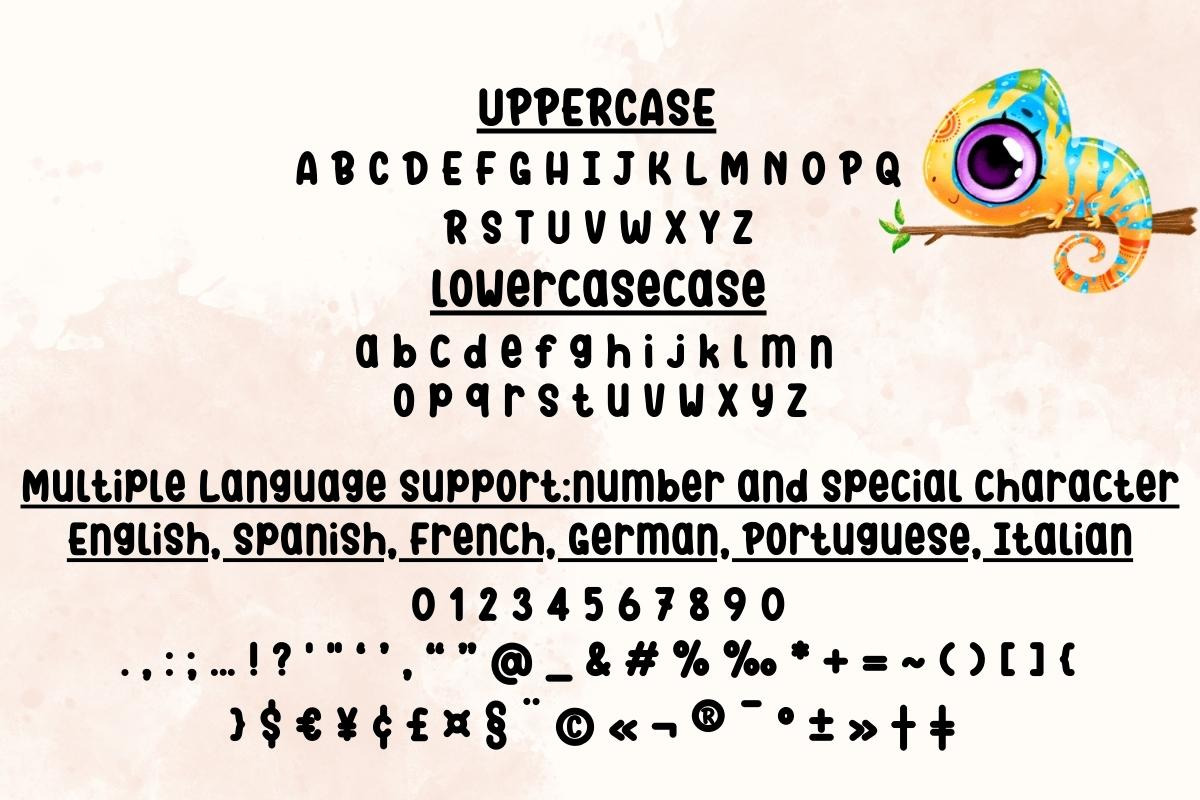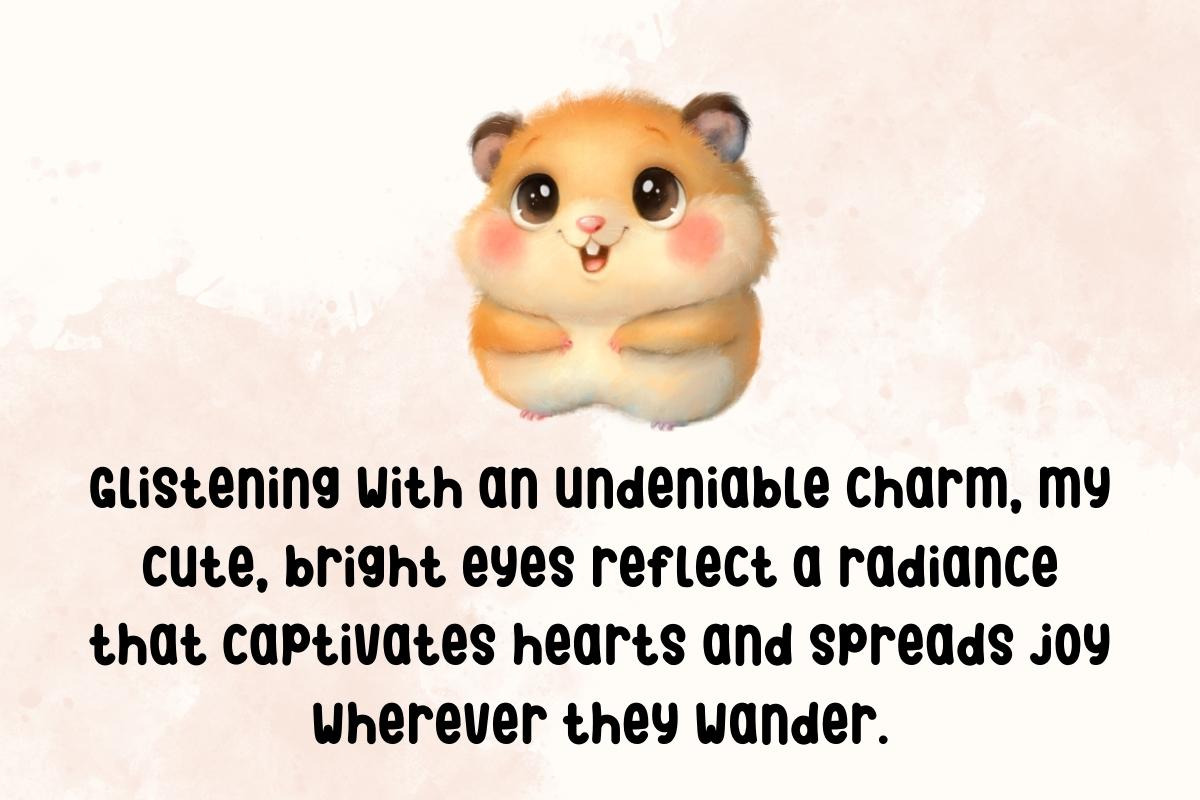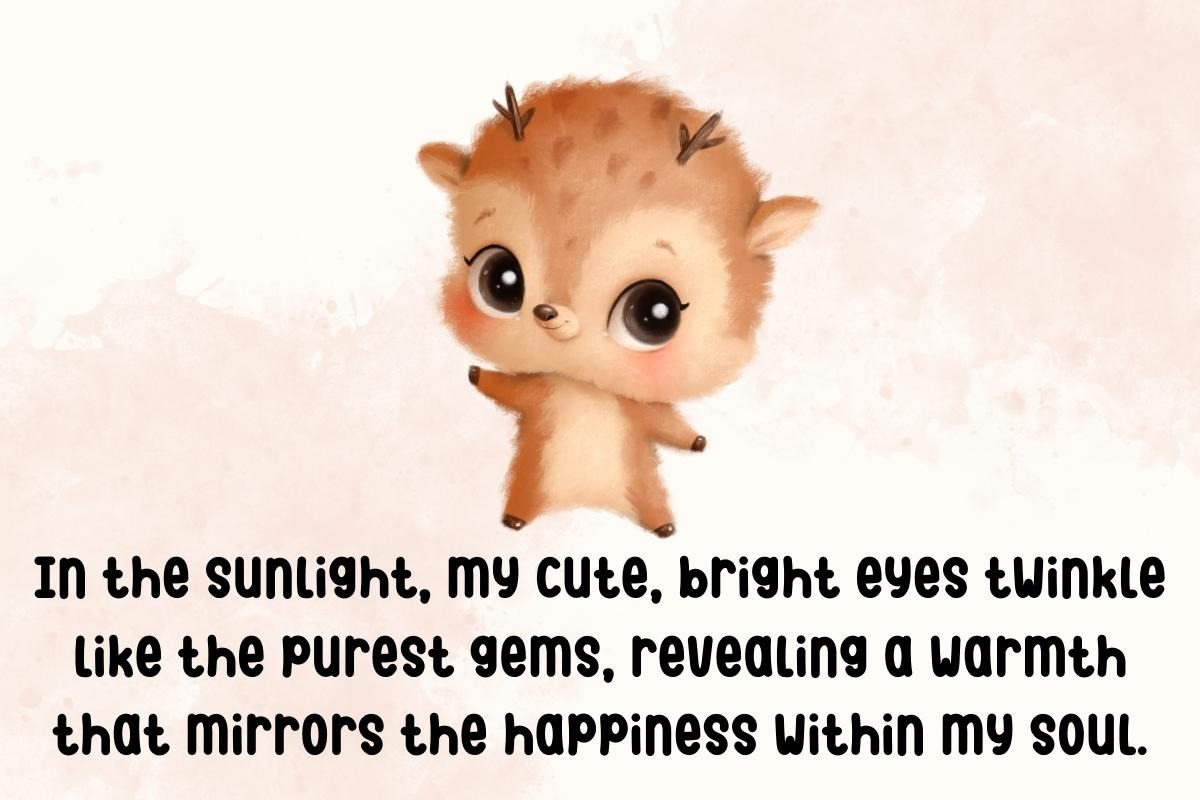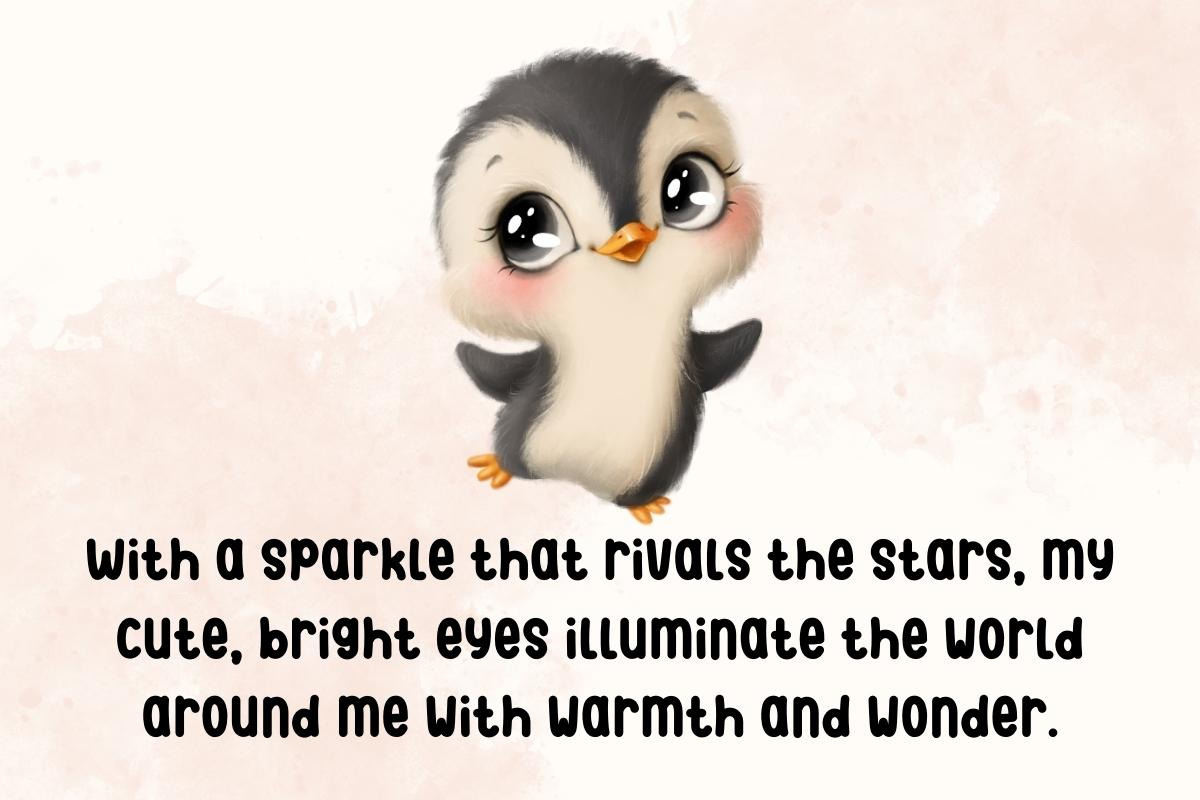
Cute Fluffy - Handwritting
Introducing Cute Fluffy, a whimsical symphony of charm and playfulness in a script font, designed to elevate your projects with its endearing handwritten flair. This delightful display font adds a touch of sweetness to any creative endeavor, turning each letter into a fluffy stroke of creativity. Embrace the uniqueness of Cute Fluffy for a distinctive and adorable aesthetic that invites you to infuse your designs with warmth and character. Unleash the cuteness in your typography with Cute Fluffy – where every character is a stroke of pure joy.